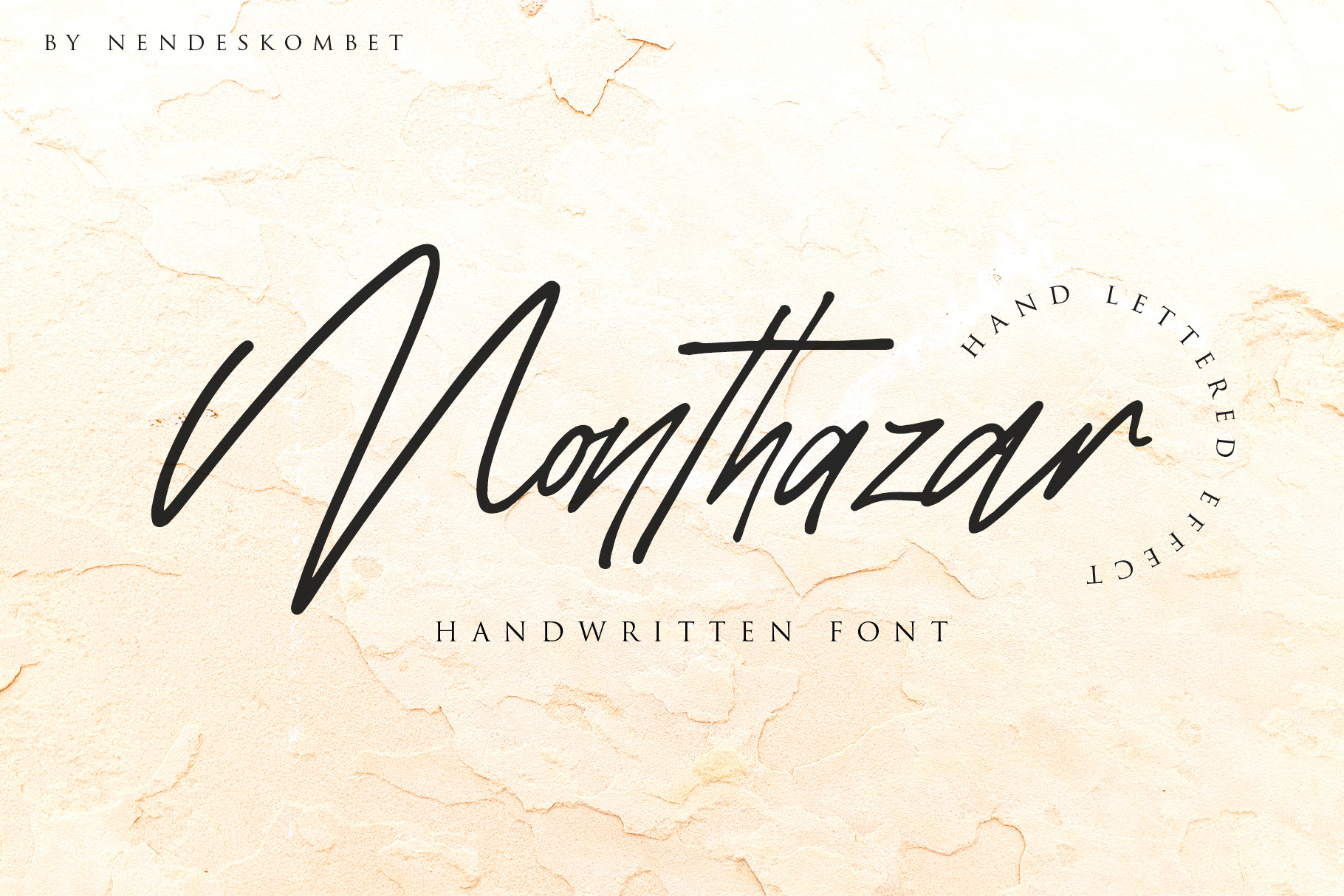
Monthazar - Handwritten font
Monthazar is handwritten font, every single letters have been carefully crafted to make your text looks beautiful. With modern script style this font will perfect for many different project ex: logo, photography, watermark, quotes, blog header, poster, wedding, branding, logo, fashion, apparel, letter, invitation, stationery, etc.
Monthazar also includes full set of uppercase and lowercase letters, multilingual symbols, numerals, punctuation. The font has smooth wet ink texture, looks very natural.